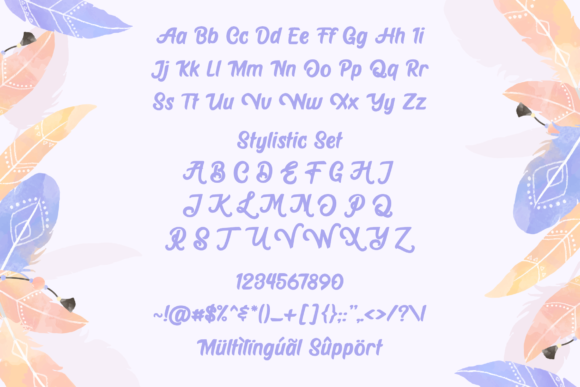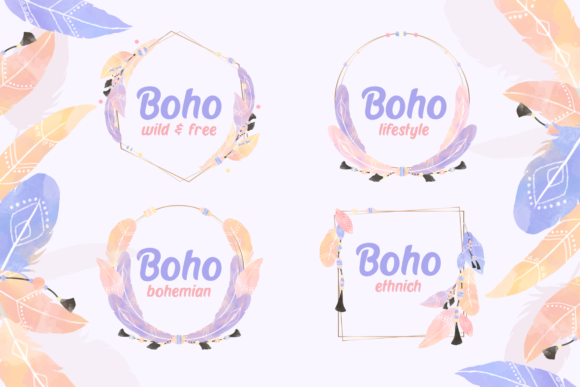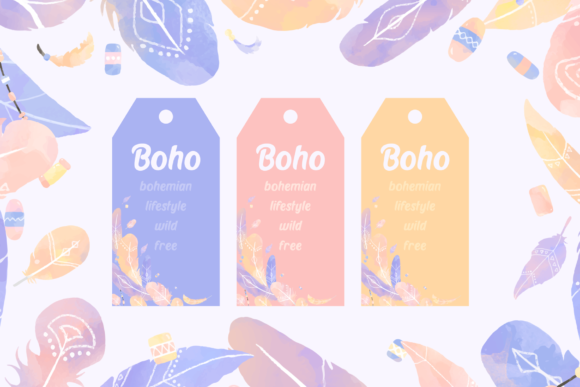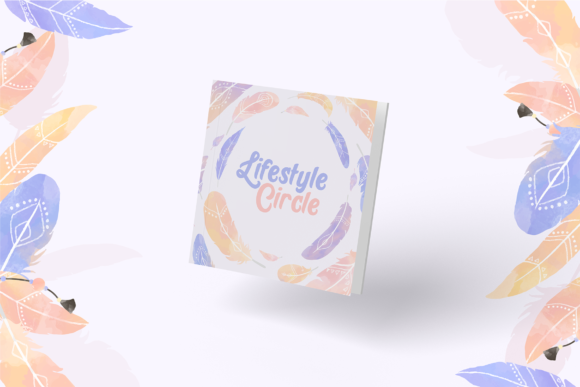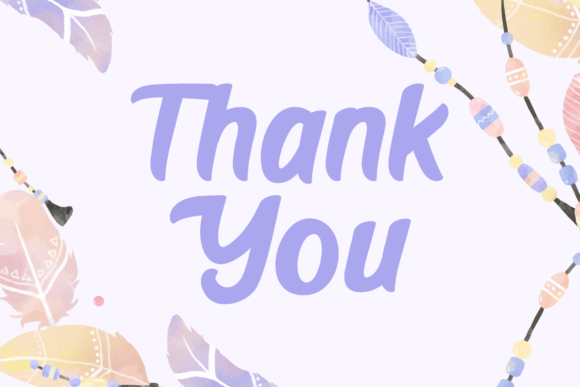
The Ultimate Guide to Benalli Font: Elevate Your Designs with this Cool and Fun Display Font
An Honest Review of Benalli Font
Benalli Font has been a wonderful addition to my font library, and I’m excited to share its strengths and a few quirks.
What I Love About Benalli Font
• ✨ Unique and Playful Style: Benalli has a distinct, fun vibe that’s perfect for designs that need a pop of personality.
• ✅ Highly Versatile: Whether you’re working on a logo, a poster, or social media graphics, Benalli adapts seamlessly.
• 💡 Excellent for Titles and Headings: Its bold and quirky style makes it an excellent choice for titles, headings, and emphasis text.
While Benalli is an amazing font, there are a few things to keep in mind:
• 🤔 Legibility at Small Sizes: Like many display fonts, Benalli can become less legible at very small sizes. It’s best used at larger sizes for maximum impact.
• ⚠️ Overuse: Because it’s so fun and playful, it’s easy to overuse Benalli. Balance it with simpler fonts for body text to maintain visual hierarchy.
3. Explore OpenType features, such as stylistic alternates and glyphs, to add variety to your text.
The Story Behind Benalli Font
Benalli Font was designed with the intention of bringing a bit of fun and whimsy to the world of typography. Inspired by street art and playful graffiti, Benalli aims to capture the essence of youthful energy and creativity. Its designer sought to create a font that would be both versatile and eye-catching, perfect for designs that need a little extra personality.
A: While Benalli is stunning for titles and headings, it’s not ideal for body text due to its playful and bold nature. It’s best paired with a simpler font for longer texts.
A: Yes, Benalli Font supports OpenType features, including stylistic alternates and glyphs, which can be accessed in compatible design software like Adobe Photoshop and Illustrator.